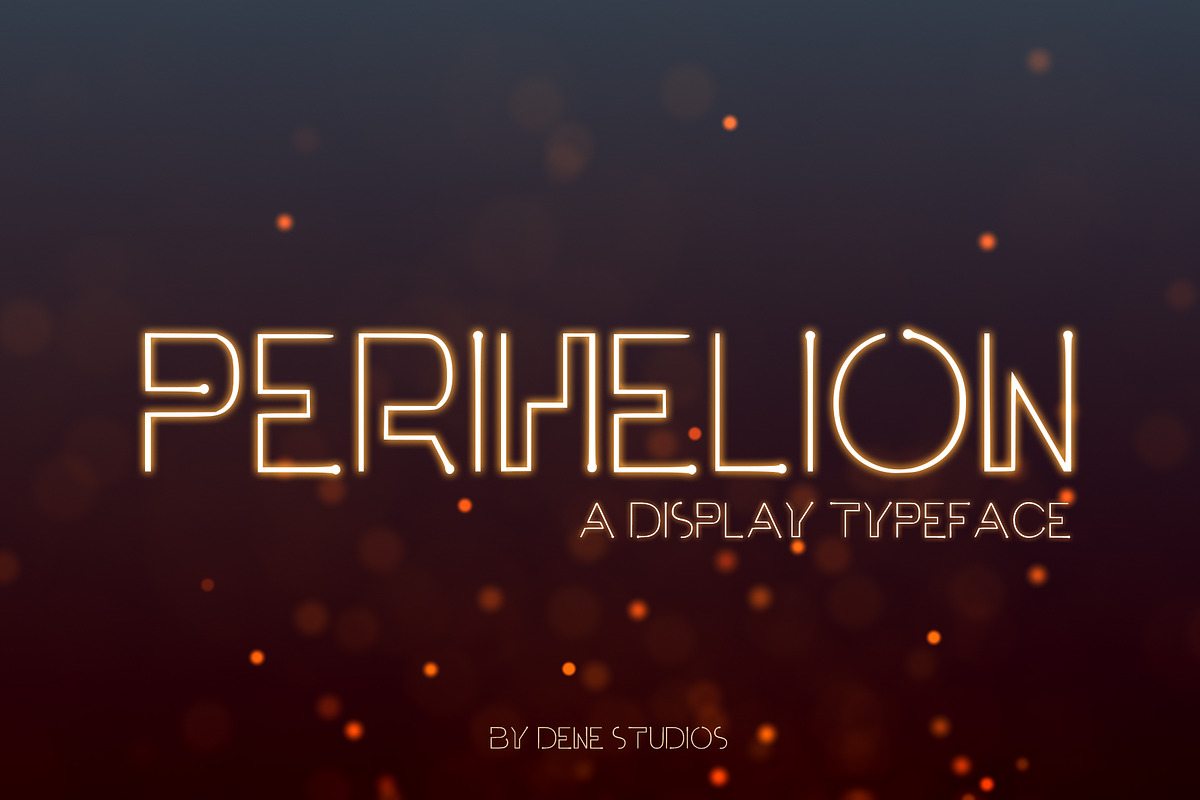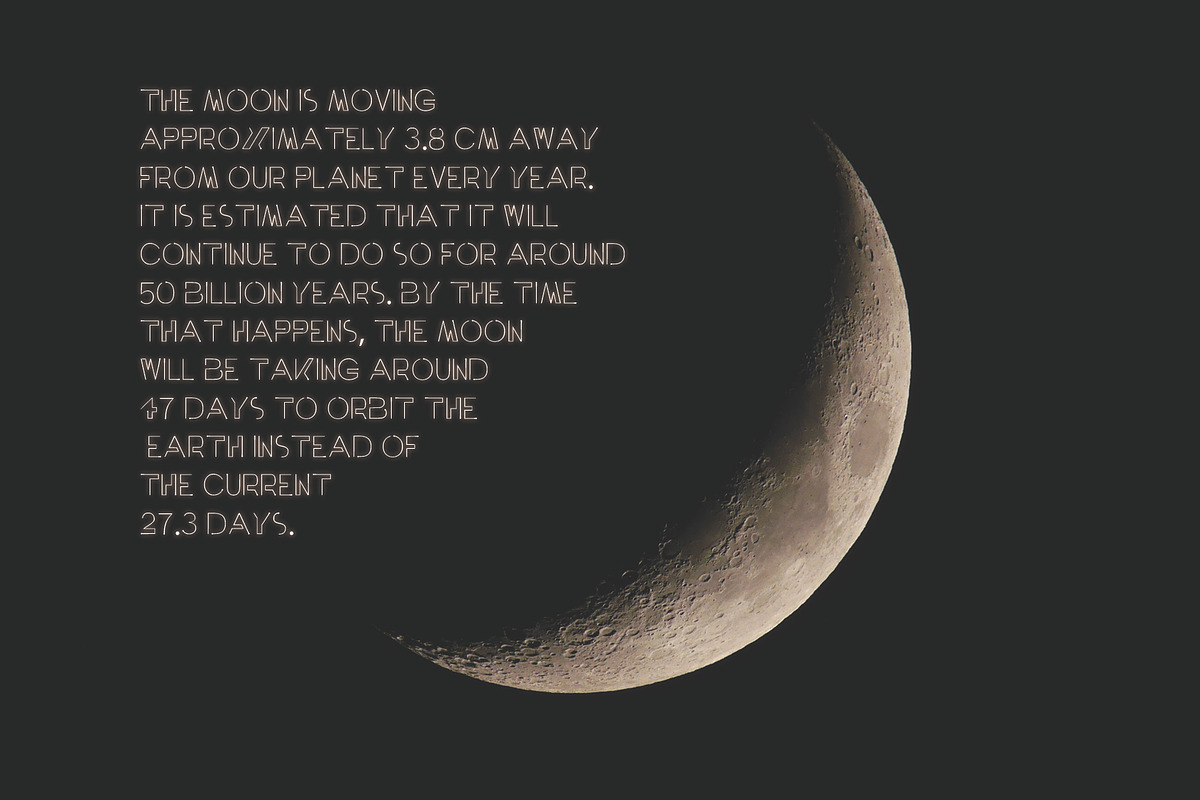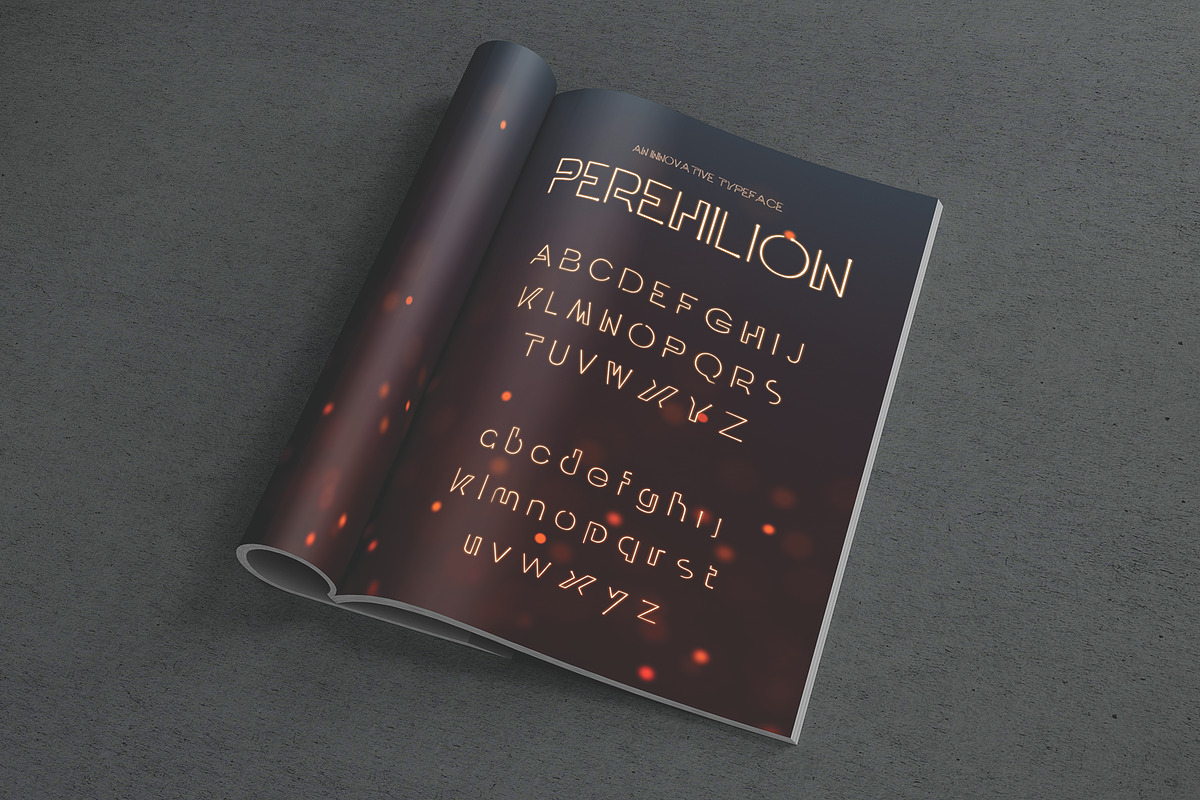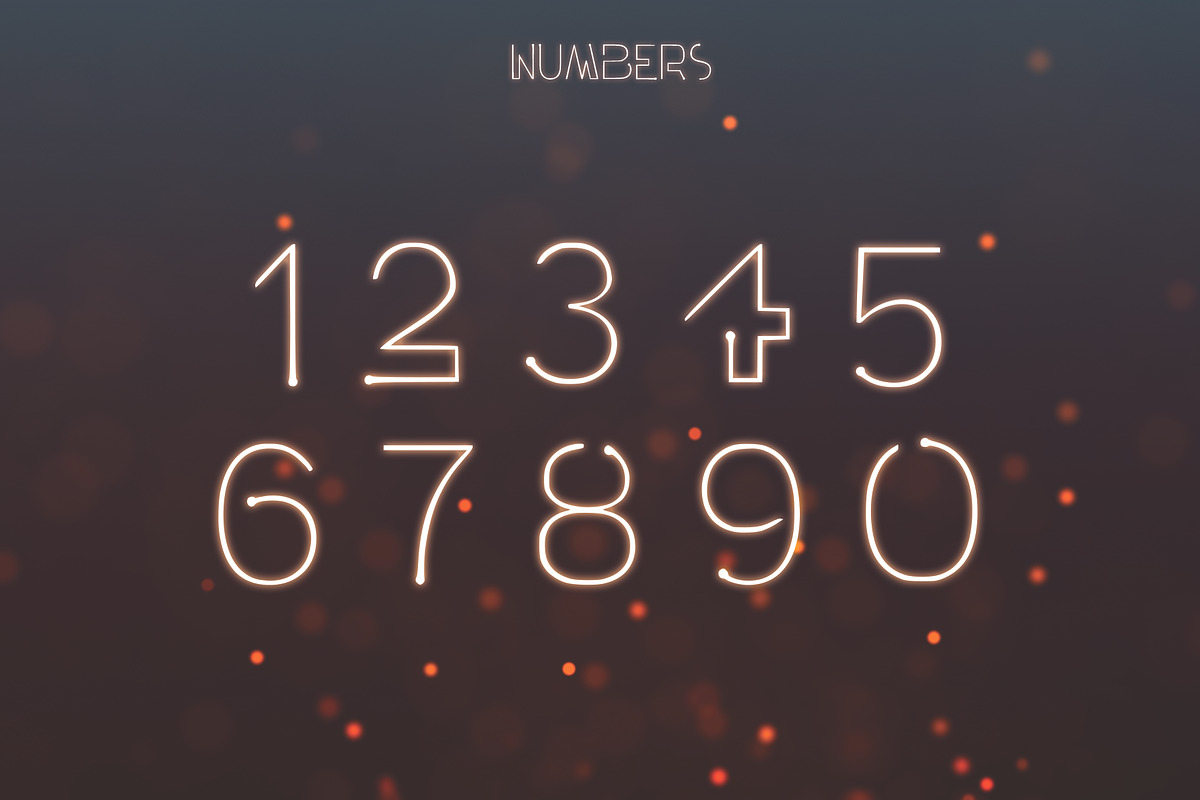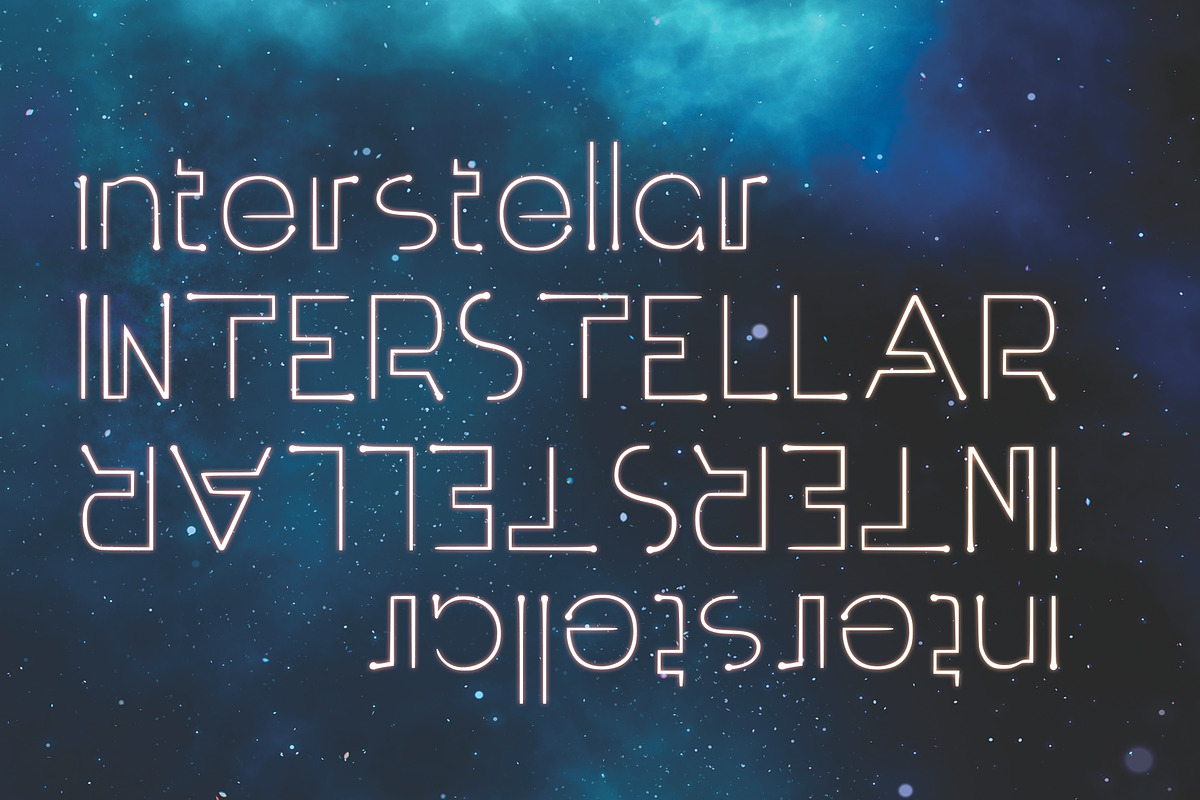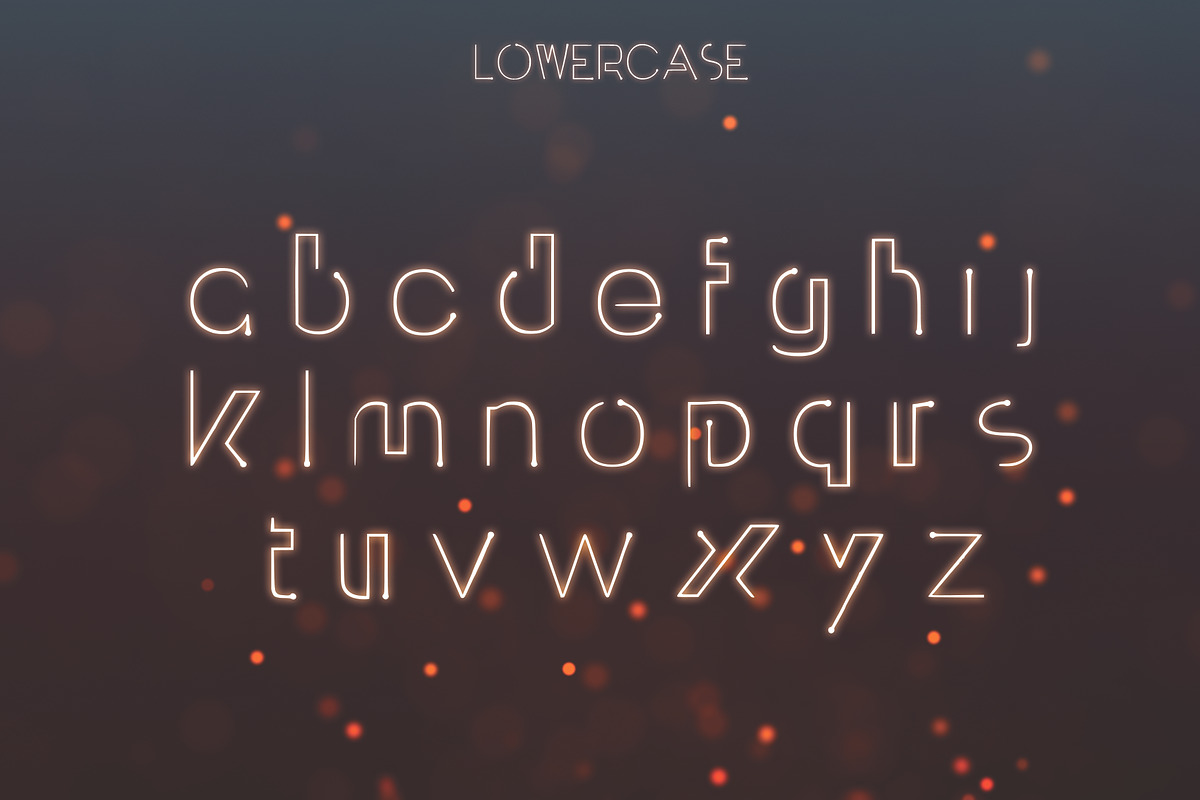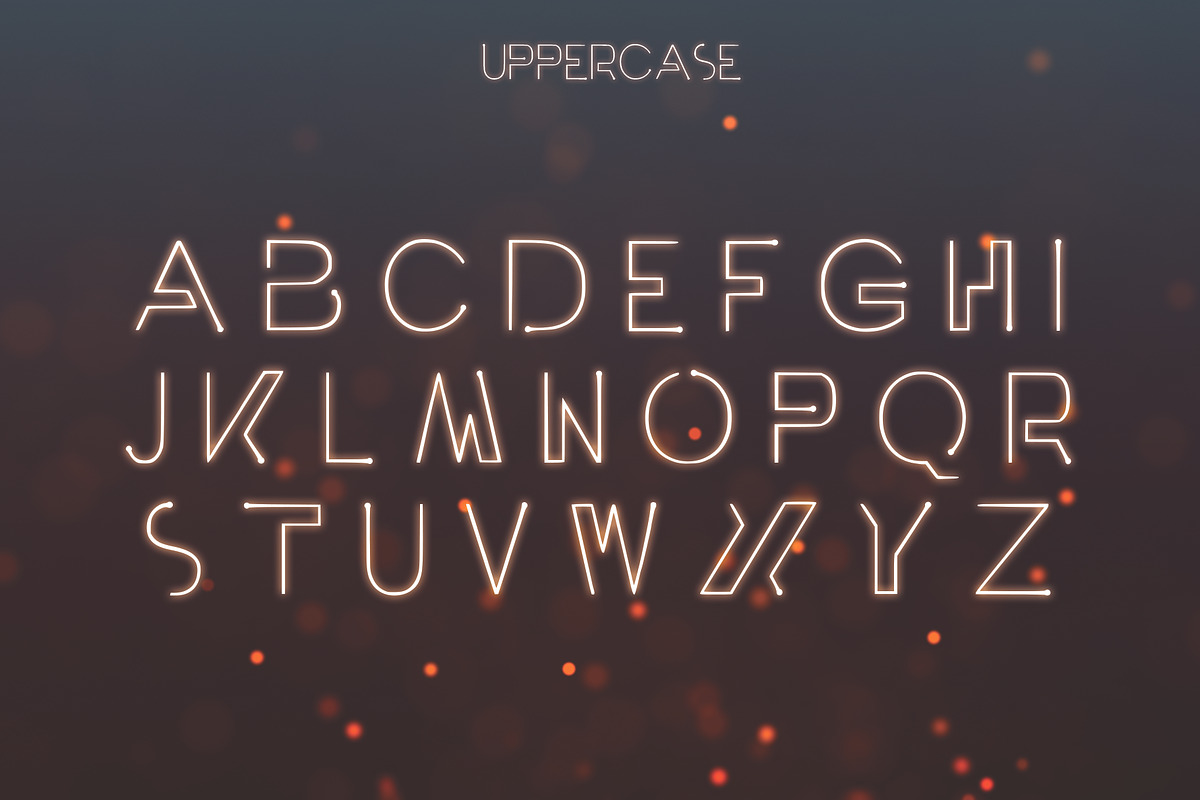
Perihelion Font
Perihelion is a unique and creative design that has been passionately handcrafted to give you an innovative typeface. Inspired by sci-fi, this font is perfect for your next project, especially if you want to give a futuristic feel.
Perihelion Font by Dene Studios fits naturally into Branding, posters, packaging, typography.